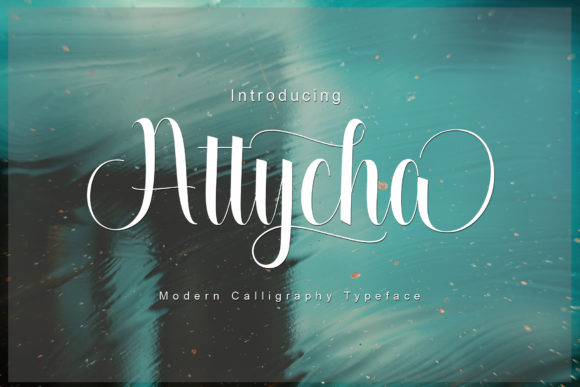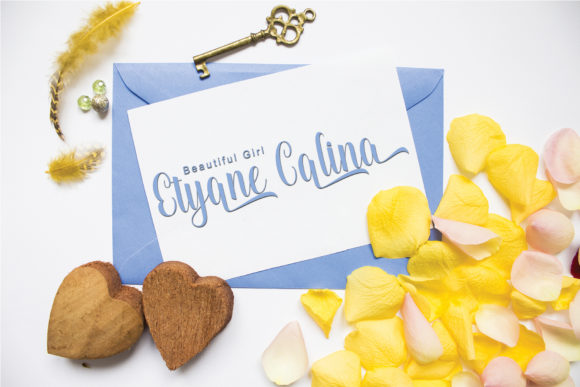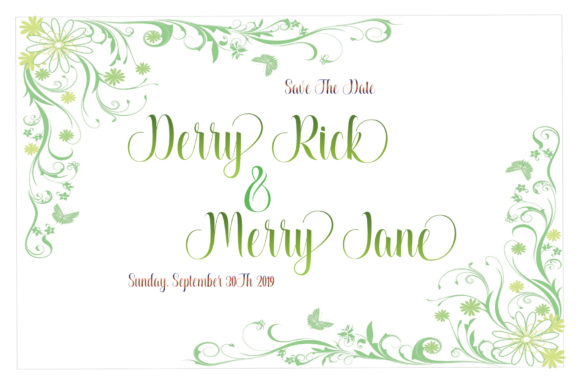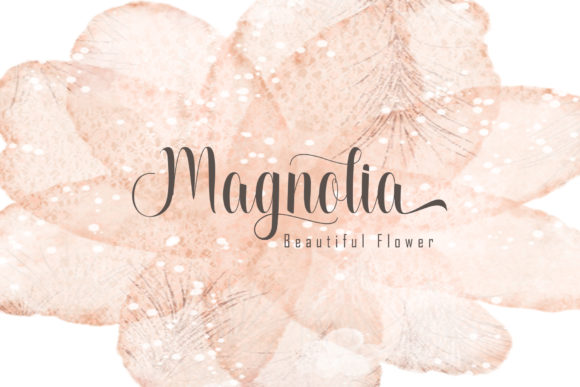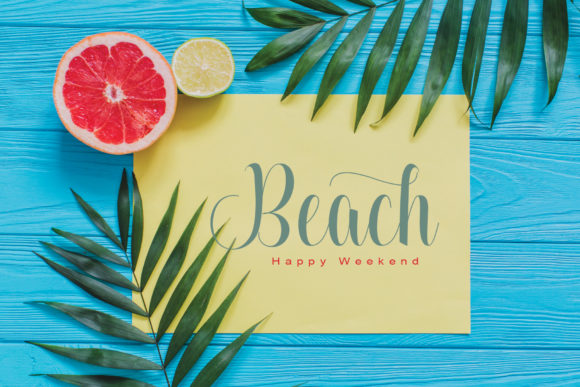
HomeScript FontsAttycha Font Script Fonts Attycha Font FacebookXPinterestWhatsApp Attycha Font Poster 2 Attycha Font Poster 3 Attycha Font Poster 4 Attycha Font Poster 5 About Attycha Font Attycha is a lovely script designed by hand. It will add a romantic touch to any crafting project! DOWNLOAD ON CREATIVE FABRICAThis font is sold and delivered by Creative Fabrica. Font Canyon may earn a commission if you buy through this link. People also explored Darling Font Kenta Font Nedora Font Half Baked Font Kiss Font Grettisa Font Handmade Font Cogan Straight Font Aletta Martta Font 352 0 TagsAttycha Font Previous articleAylogri FontNext articleAlannn Font LEAVE A REPLY Cancel reply Comment: Please enter your comment! Name:* Please enter your name here Email:* You have entered an incorrect email address! Please enter your email address here Website: Save my name, email, and website in this browser for the next time I comment. Personal Use Free Masha Song Personal Use Free Read more about this font Anggiana Personal Use Free Read more about this font Mandara Personal Use Free Read more about this font Arnitta Callina Personal Use Free Read more about this font BLOG Best Fonts for YouTube Videos: Make Your Thumbnails Stand Out Best Fonts for YouTube Videos: Make Your Thumbnails Stand Out Choosing the right font can make a massive difference in how your YouTube videos perform.... How to Install and Use Fonts on Windows, macOS, and Web Projects How to Cut Any Font on Cricut: Convert a Font to SVG (Free) Free vs Paid Fonts: Why Investing in Premium Fonts Is Worth It